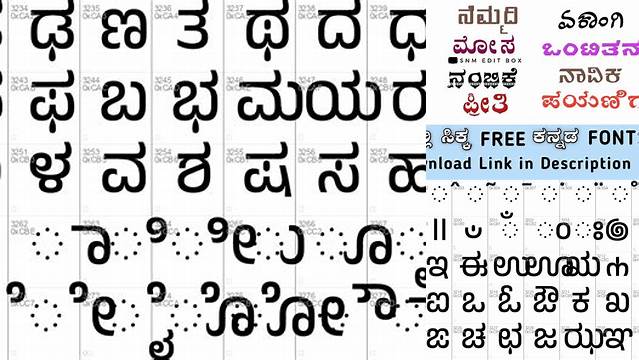
Introduction: Unleashing the Beauty of Kannada Script
Hey guys! Are you looking to add a touch of Kannada to your designs or documents? Well, you've come to the right place! Kannada, a beautiful and ancient language spoken by millions in India, boasts a rich literary and cultural heritage. Its elegant script adds a unique flair to any project. But finding the right Kannada fonts can sometimes feel like searching for a needle in a haystack. Fear not! This comprehensive guide will walk you through the process of downloading free Kannada fonts, ensuring you have a diverse collection to choose from. In this digital age, the importance of readily available and high-quality fonts cannot be overstated, especially for languages like Kannada, which deserve to be showcased in all their glory. Whether you're a designer crafting stunning visuals, a writer penning heartfelt prose, or simply someone who appreciates the beauty of the Kannada script, having access to a wide array of fonts is crucial. We'll explore the best resources for finding these fonts, discuss the different types of fonts available, and even touch on the licensing aspects to ensure you're using them correctly. So, get ready to dive into the world of Kannada typography and discover the perfect fonts to elevate your creations!
Why Use Kannada Fonts?
Before we delve into the specifics of downloading fonts, let's quickly touch upon why using Kannada fonts is so important. For starters, it's about preserving and promoting the language itself. By using Kannada in your designs, websites, and documents, you're contributing to its visibility and ensuring its continued relevance in the digital sphere. Furthermore, using the correct font can significantly impact the readability and overall aesthetic of your content. A well-chosen font can make your text more engaging, easier to read, and visually appealing. Imagine trying to read a beautifully written Kannada poem in a generic, sans-serif font – it just wouldn't have the same impact, would it? Using the appropriate font helps convey the nuances of the language and its cultural context. Moreover, for businesses and organizations targeting a Kannada-speaking audience, using Kannada fonts is essential for effective communication. It shows respect for the language and culture, building trust and rapport with your audience. So, whether you're creating marketing materials, educational resources, or personal projects, choosing the right Kannada font is a crucial step in ensuring your message resonates with your intended audience. The world of typography is vast and varied, and within the realm of Kannada fonts, there's a font for every occasion and style. From traditional, ornate styles that evoke a sense of history and heritage to modern, minimalist designs that exude contemporary flair, the possibilities are endless. By exploring the diverse range of Kannada fonts available, you can find the perfect match for your project and truly bring your vision to life.
Understanding Kannada Font Types
Now, let's talk about the different types of Kannada fonts you might encounter. Just like English fonts, Kannada fonts come in various styles, each with its unique characteristics and suitability for different purposes. You'll generally find two broad categories: serif and sans-serif fonts. Serif fonts, characterized by the small decorative strokes (serifs) at the ends of the letters, often convey a sense of tradition, formality, and elegance. They're typically used for body text in books, newspapers, and other long-form content. Sans-serif fonts, on the other hand, lack these serifs and have a cleaner, more modern look. They're often preferred for headlines, websites, and other digital applications. Within these two categories, you'll find a plethora of styles, ranging from classic and ornate to contemporary and minimalist. Some fonts are designed to mimic traditional calligraphy, while others are optimized for on-screen readability. It's important to consider the context in which you'll be using the font when making your selection. For example, a formal document might call for a more traditional serif font, while a website might benefit from a cleaner, sans-serif option. In addition to serif and sans-serif, you might also encounter display fonts, which are designed to be used at larger sizes for headlines and titles. These fonts often feature more elaborate and decorative designs, making them perfect for grabbing attention. Then there are script fonts, which mimic handwriting and can add a personal touch to your designs. Ultimately, the best way to understand the different types of Kannada fonts is to explore them! Experiment with different styles and see what works best for your projects. Don't be afraid to mix and match fonts to create visual interest, but always ensure that your choices are legible and appropriate for the intended audience and purpose.
Conclusion: Embrace the World of Kannada Typography
So there you have it! A comprehensive guide to downloading free Kannada fonts. I hope this has demystified the process and inspired you to explore the beautiful world of Kannada typography. Remember, choosing the right font can make a huge difference in the overall look and feel of your projects. By utilizing the resources and tips outlined in this guide, you can build a stunning collection of Kannada fonts and bring your creative visions to life. Now go forth and create something amazing! The beauty and elegance of the Kannada script are waiting to be unleashed, and with the right fonts at your fingertips, you can truly make your designs stand out. Don't be afraid to experiment with different styles and combinations to find the perfect fit for your project. The world of typography is vast and exciting, and there's always something new to discover. By embracing the diversity of Kannada fonts, you can add a unique and authentic touch to your work that resonates with your audience. Whether you're designing a website, creating a brochure, or simply writing a document, the right font can make all the difference. So, take the time to explore the resources available, download some free Kannada fonts, and let your creativity flow. The possibilities are endless, and the results can be truly stunning. Happy designing!